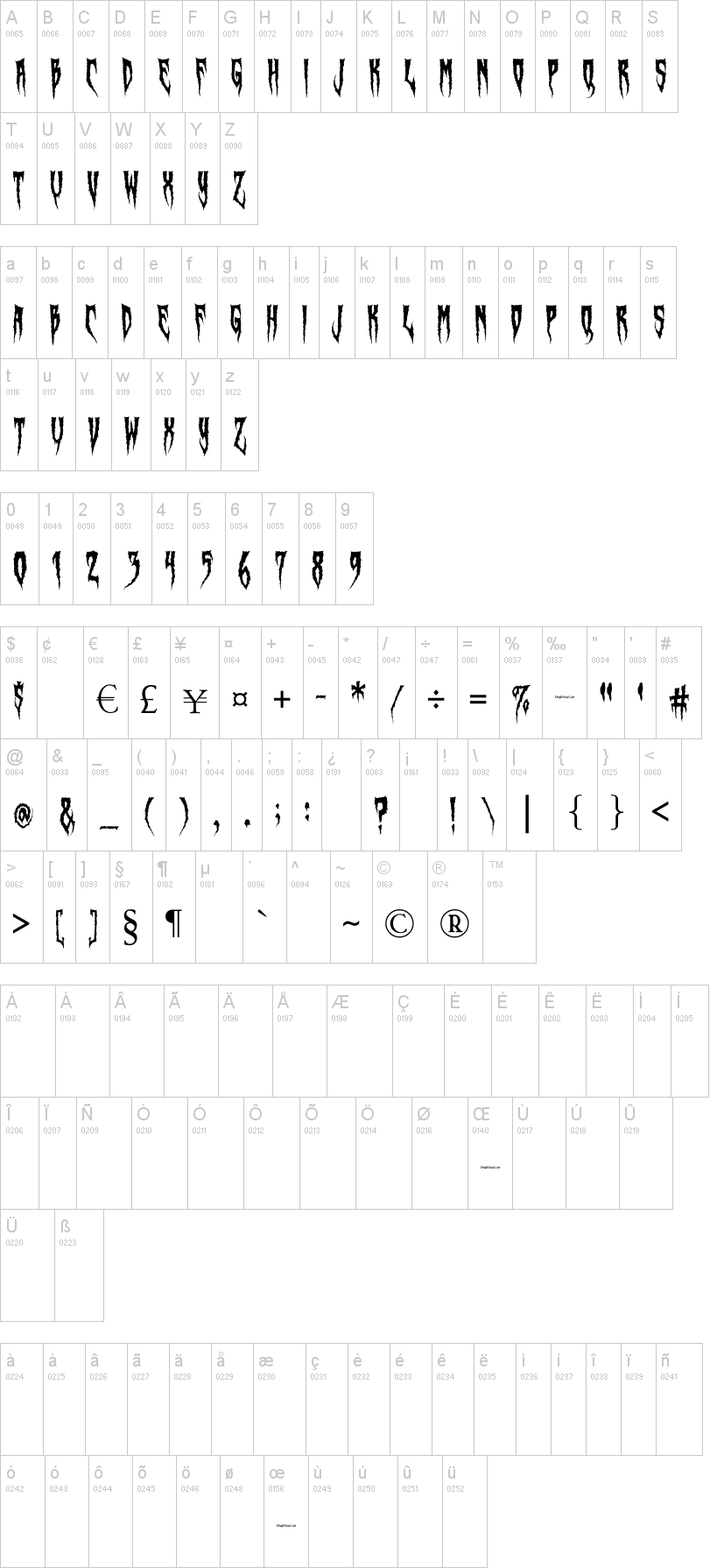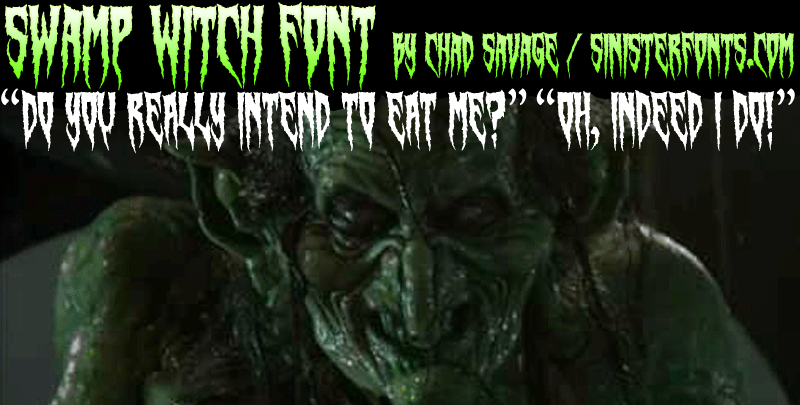
Note of the authorSwamp Witch Font by Chad Savage
Created 2009, hand-lettered just after Halloween.
This font is intended for specialty and graphic uses. It will look just awful if used in a paragraph format.